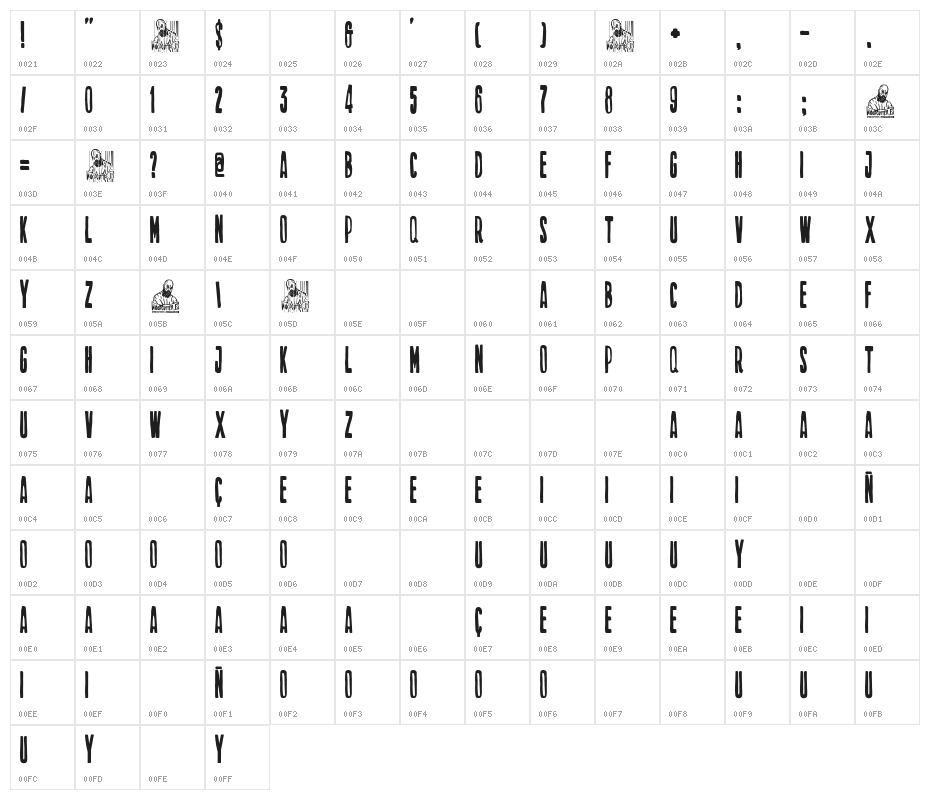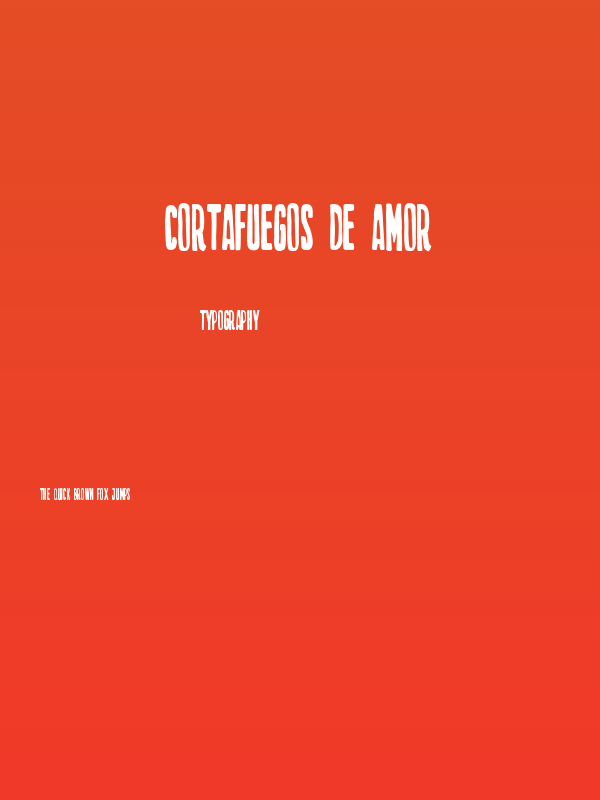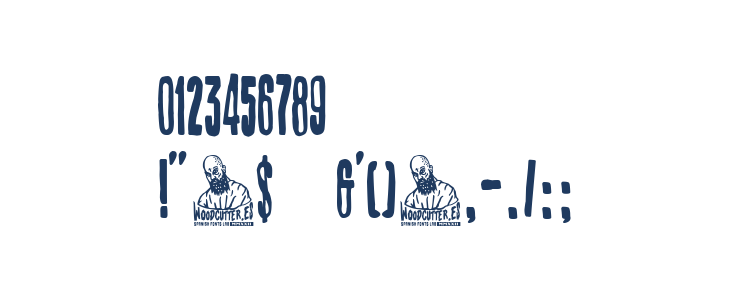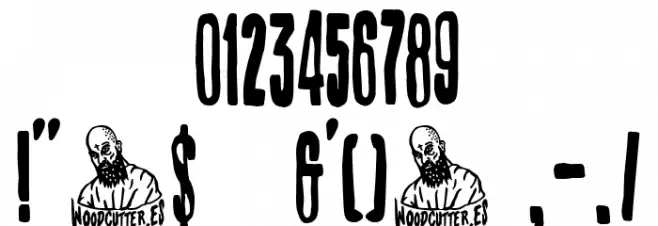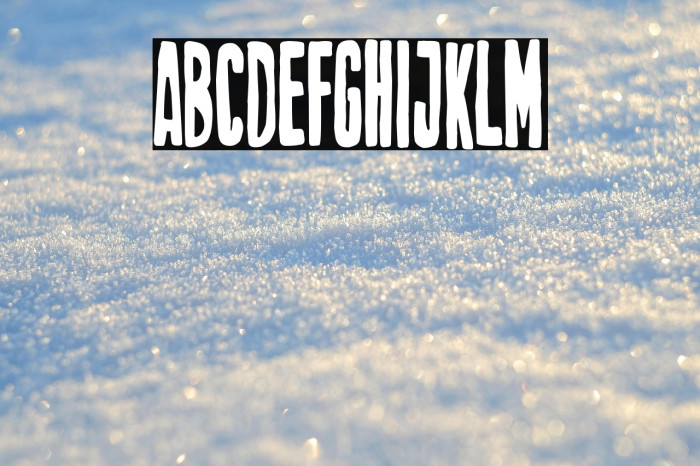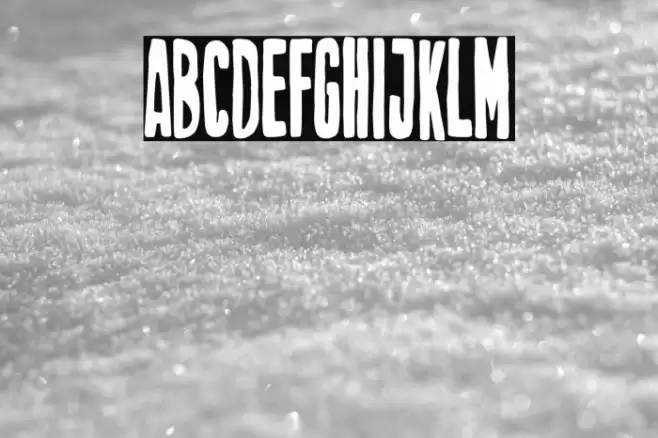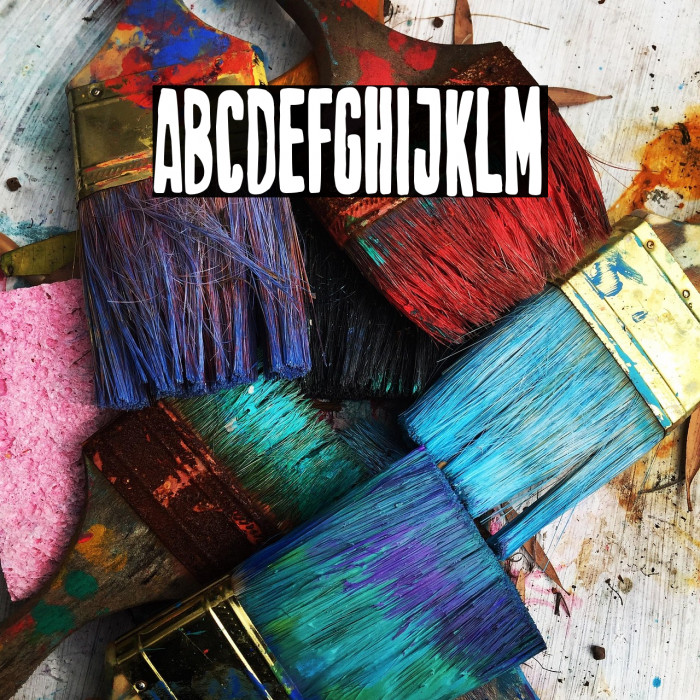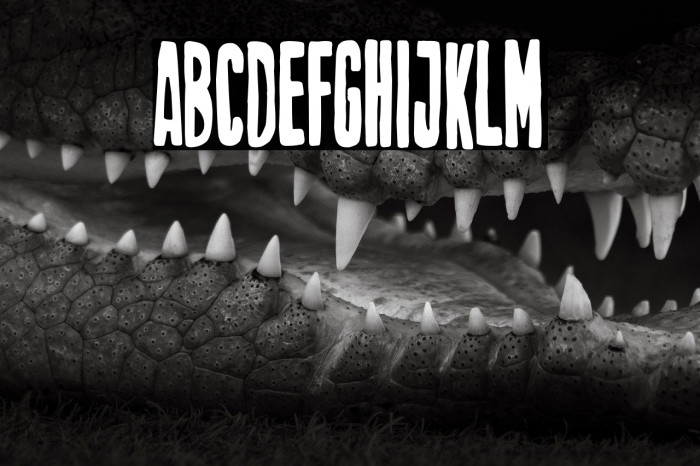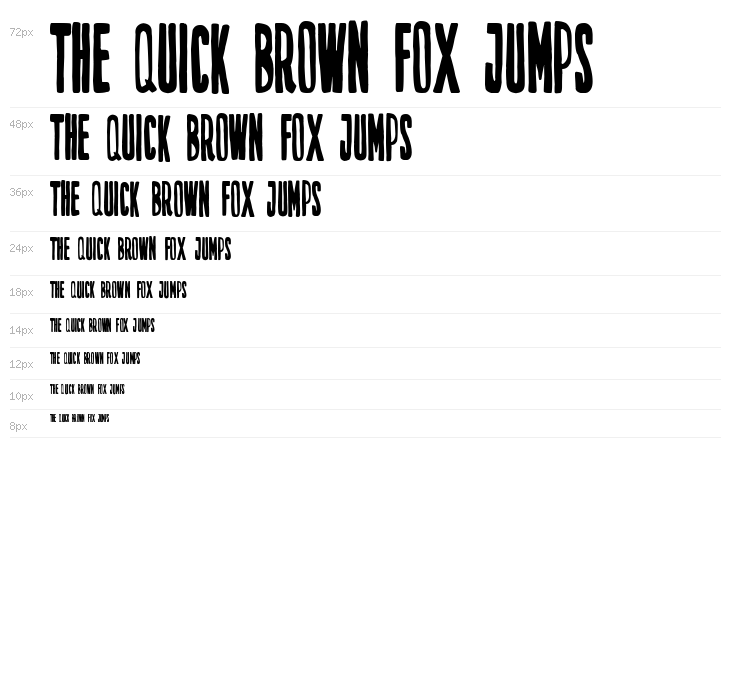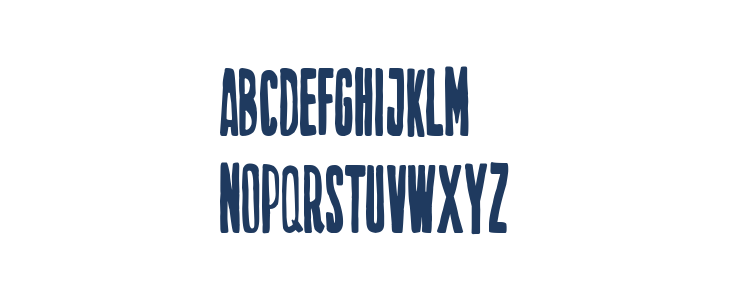
Cortafuegos de amor Font
Cortafuegos de amor Description
This font features a bold and expressive style with a hand-drawn appearance, characterized by its uneven strokes and playful design. The letters have a slightly irregular shape, giving them a unique and artistic flair. The uppercase and lowercase letters maintain a consistent height, while the numbers and special characters complement the overall aesthetic. This font's distinctive look makes it suitable for creative and informal projects, adding a touch of personality and charm to any design.
| Overall Style | Artistic and playful |
| Use Case | Headlines, Logos, Artistic projects |
| Proposed Projects | Ideal for posters, album covers, artistic branding, and creative invitations. |